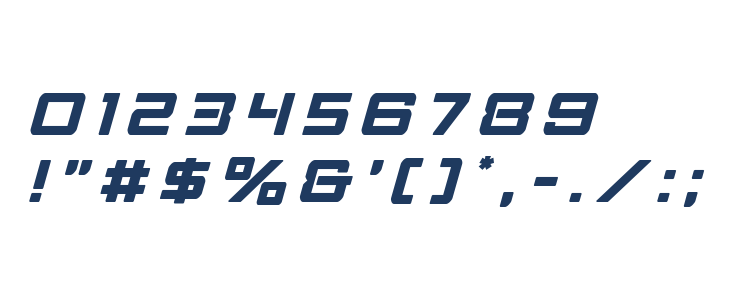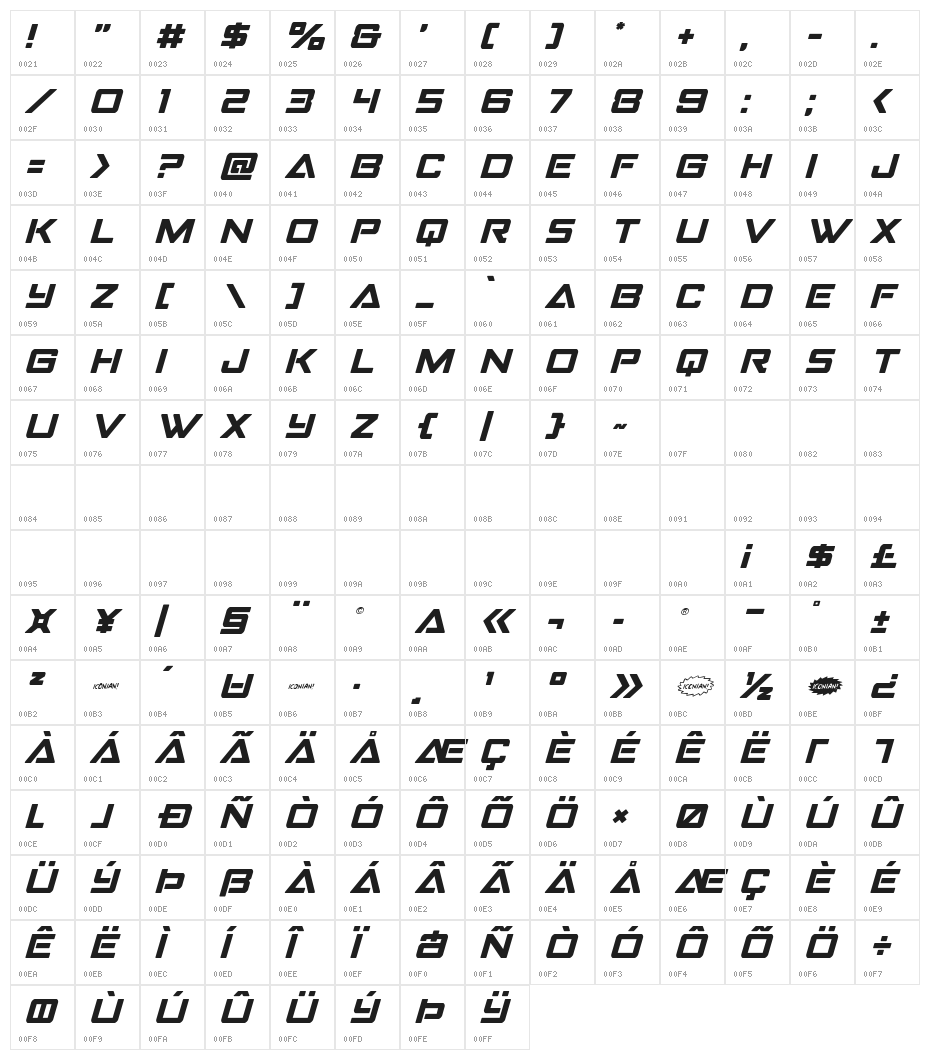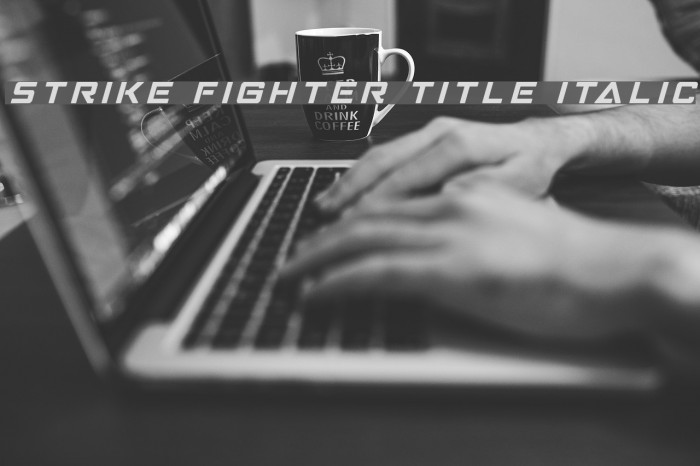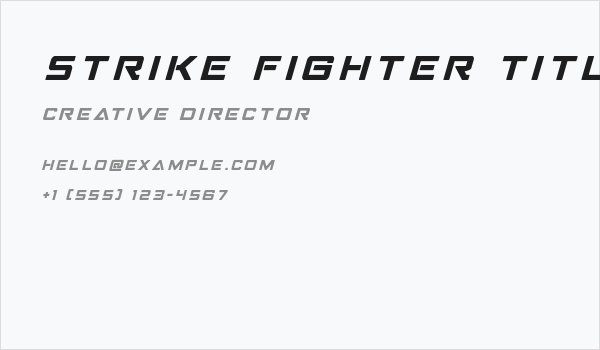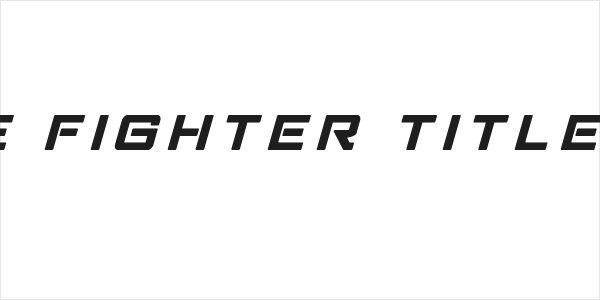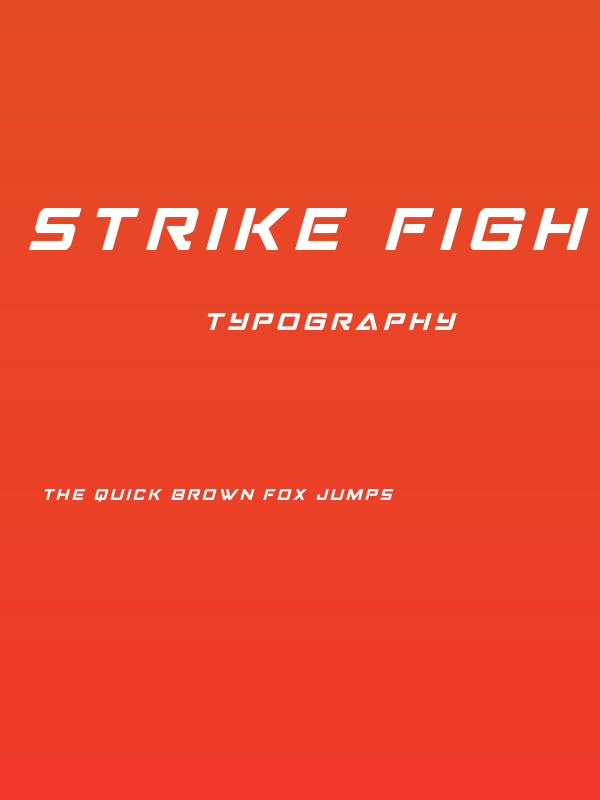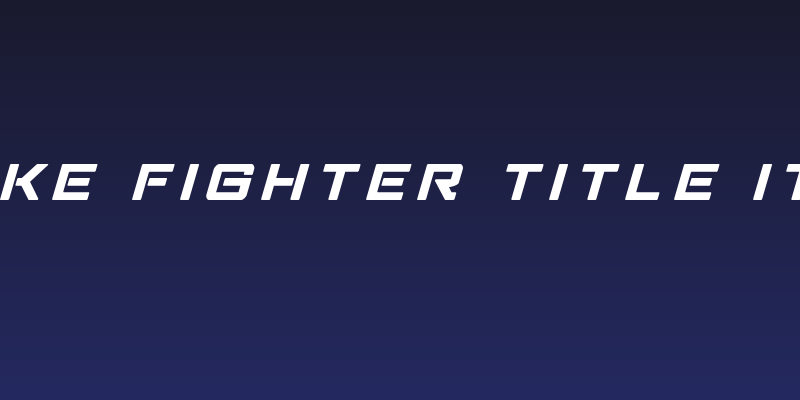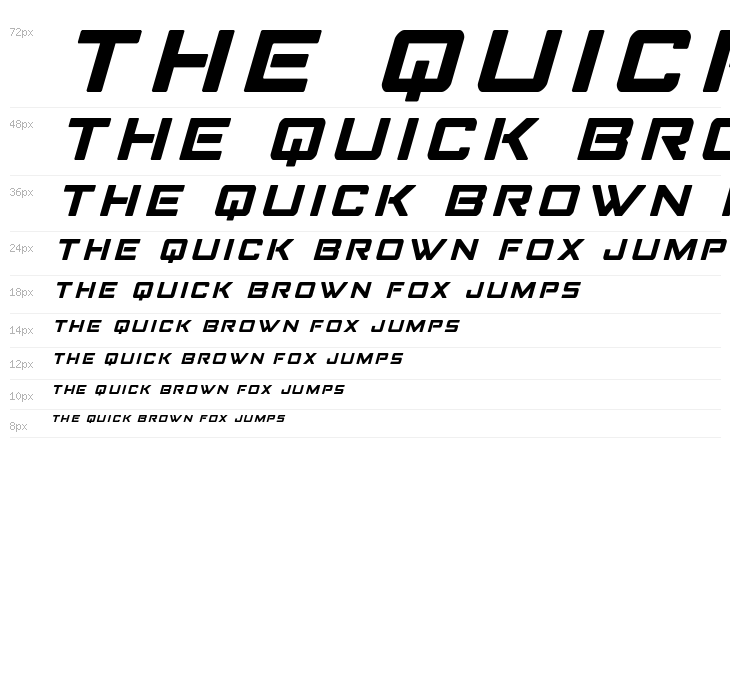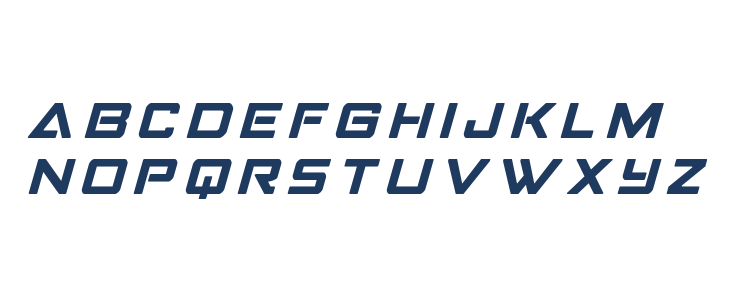
Strike Fighter Title Italic Font
Strike Fighter Title Italic Description
This font features a bold, italicized style with a futuristic and dynamic appearance. The characters are slightly slanted, giving a sense of motion and speed, which is enhanced by the sharp angles and clean lines. The uppercase letters are uniform in height, while the lowercase letters maintain a consistent style, ensuring readability. The numerals are distinct and match the overall aesthetic, making them suitable for digital displays or modern interfaces. Special characters are well-defined, adding versatility to the font's usage. The design is sleek and modern, ideal for projects that require a contemporary and energetic look.
| Use Case | Headlines, Logos, Digital displays |
| Proposed Projects | Ideal for use in technology branding, video game titles, sports team logos, and modern advertising campaigns. |